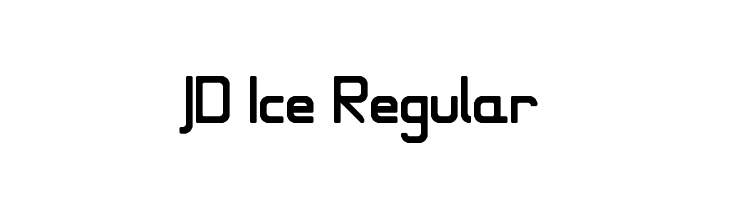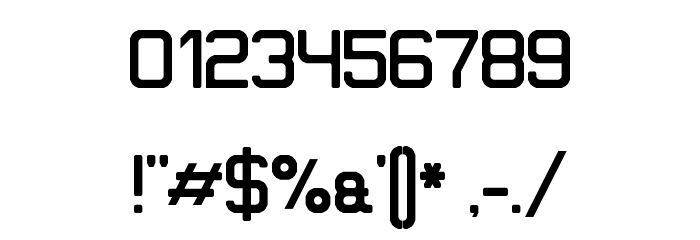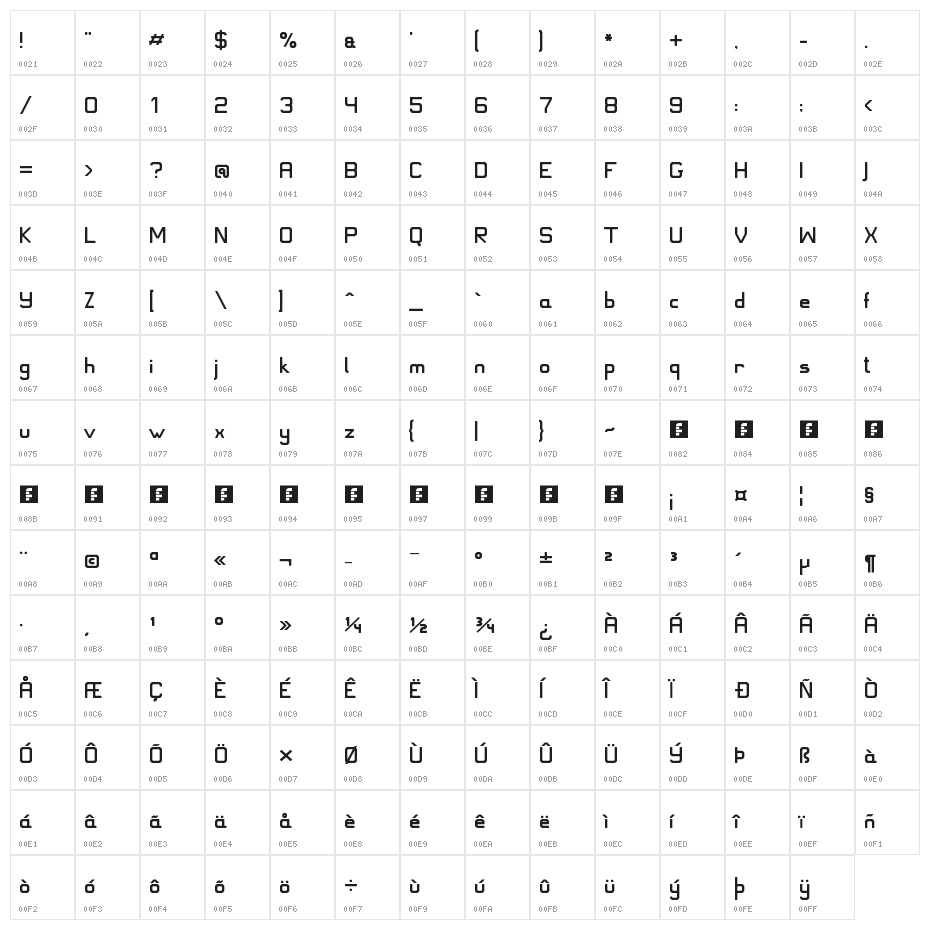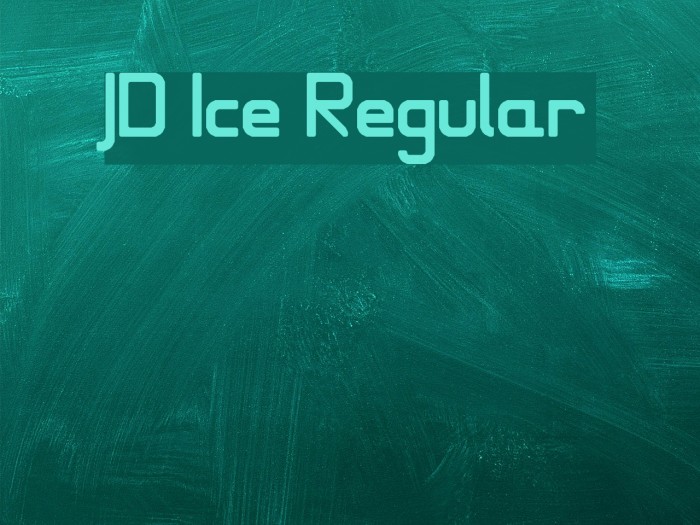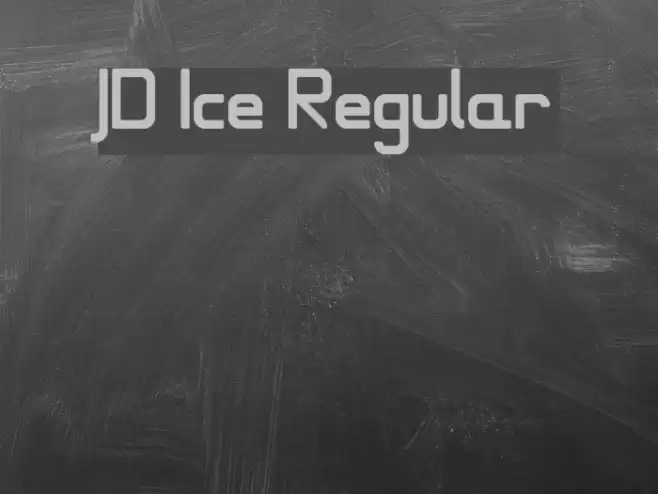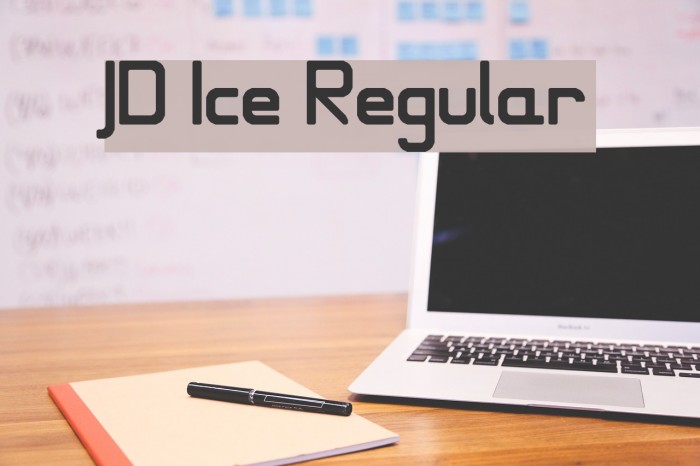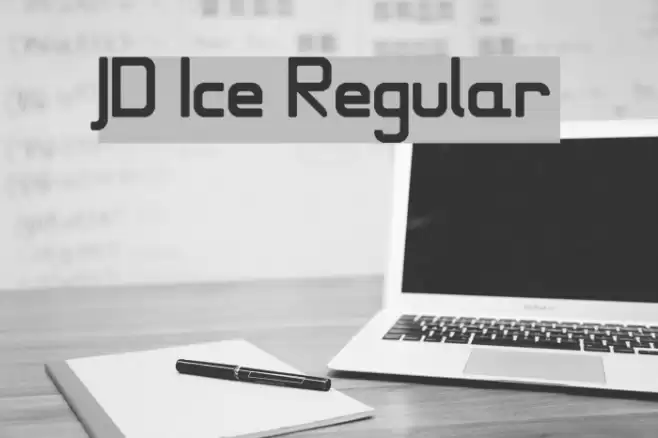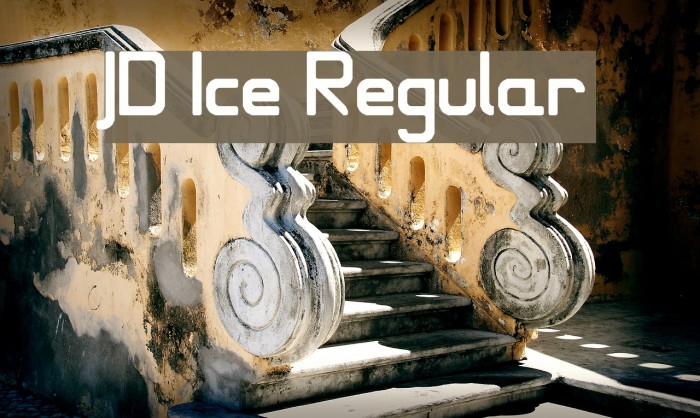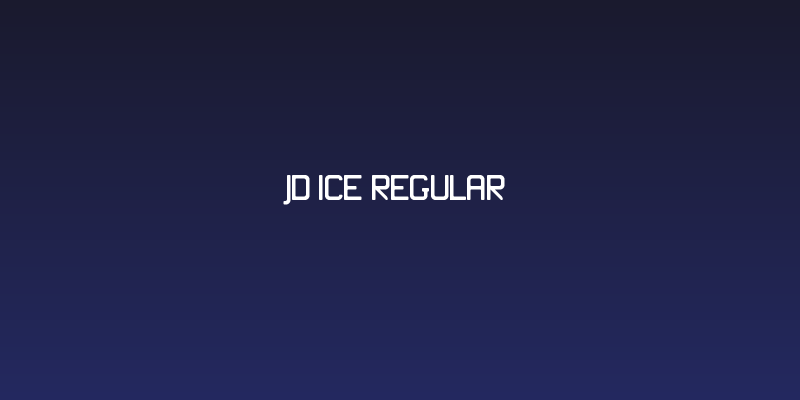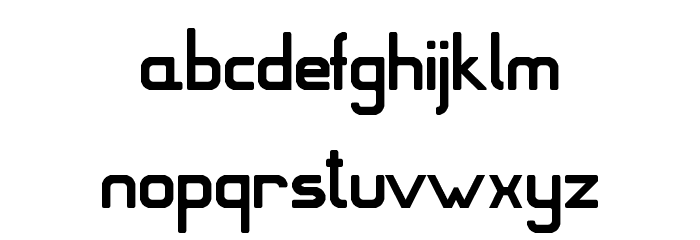
JD Ice Regular Font
JD Ice Regular Description
This font features a modern, geometric design with rounded edges and a clean, structured appearance. The uppercase letters are uniform in height, while the lowercase letters maintain a consistent baseline, creating a harmonious flow. The numerals are bold and easily distinguishable, making them suitable for various applications. Special characters are designed with the same geometric style, ensuring a cohesive look across all text elements. The overall style is contemporary, making it ideal for projects that require a fresh and modern aesthetic.
| Proposed Projects | Ideal for technology branding, modern advertising, digital interfaces, and contemporary print media. |